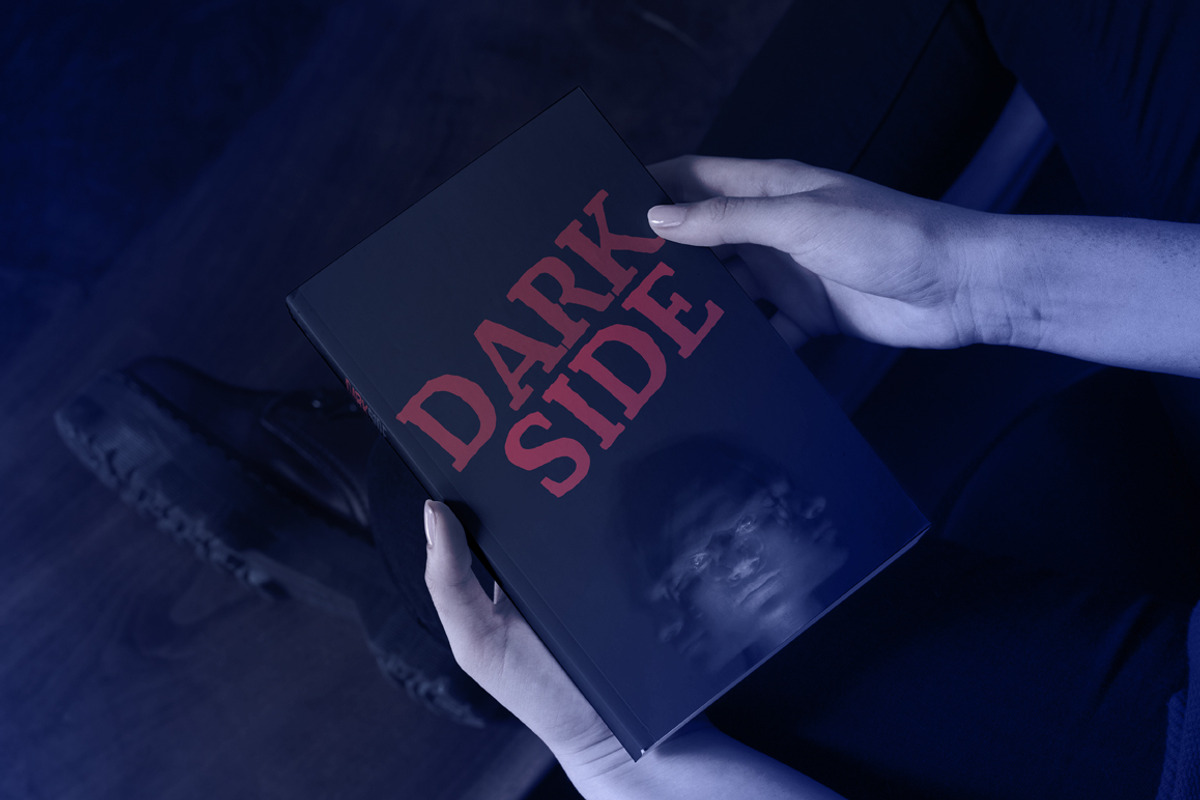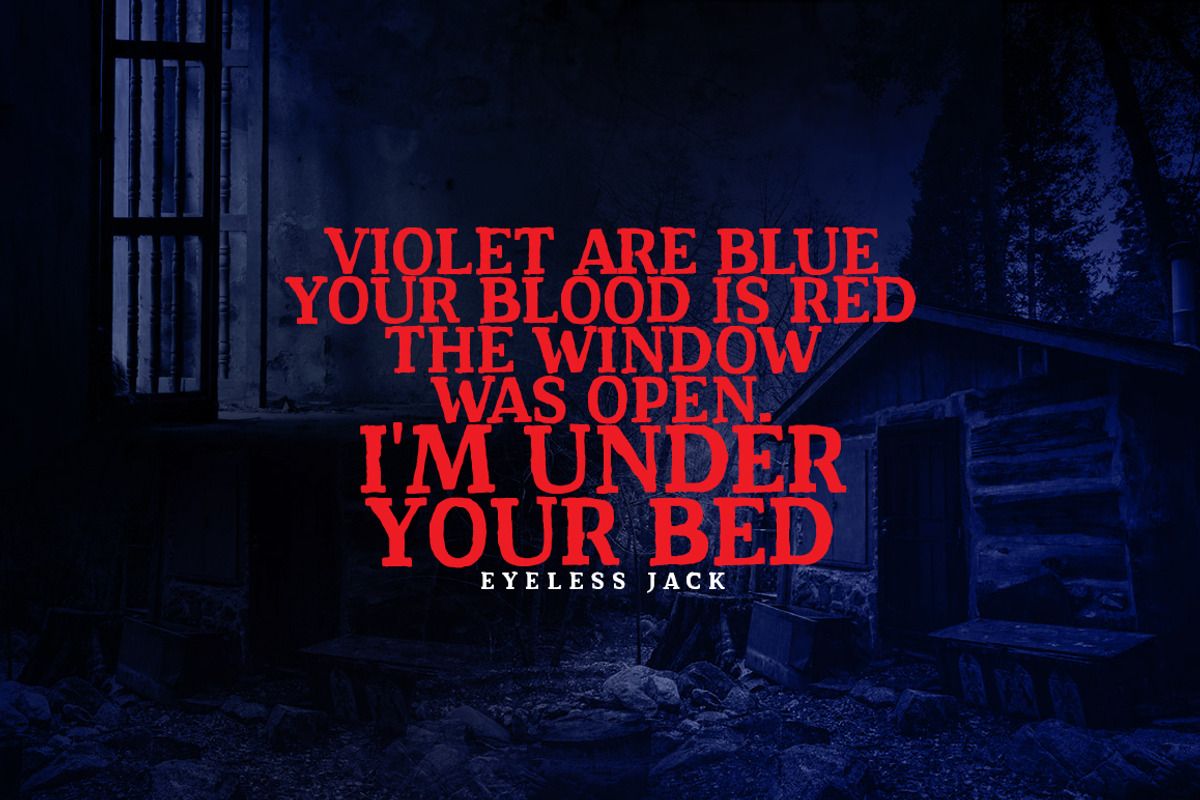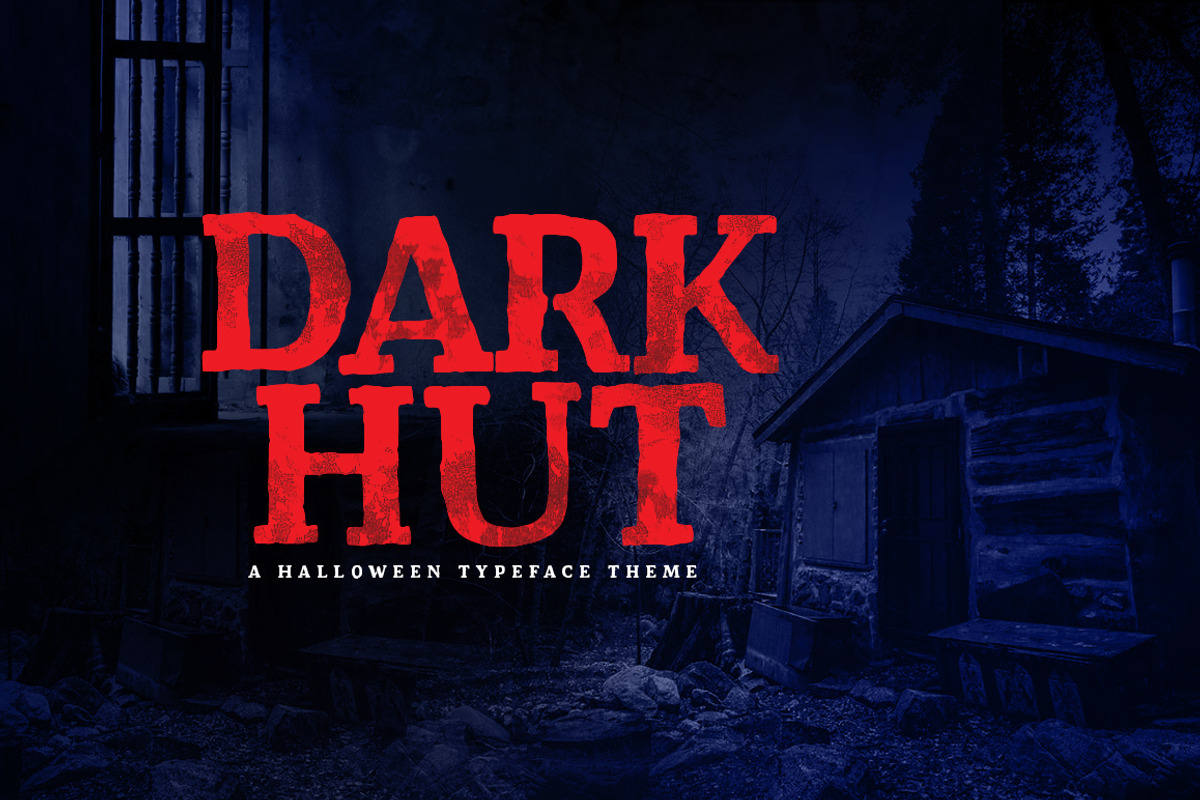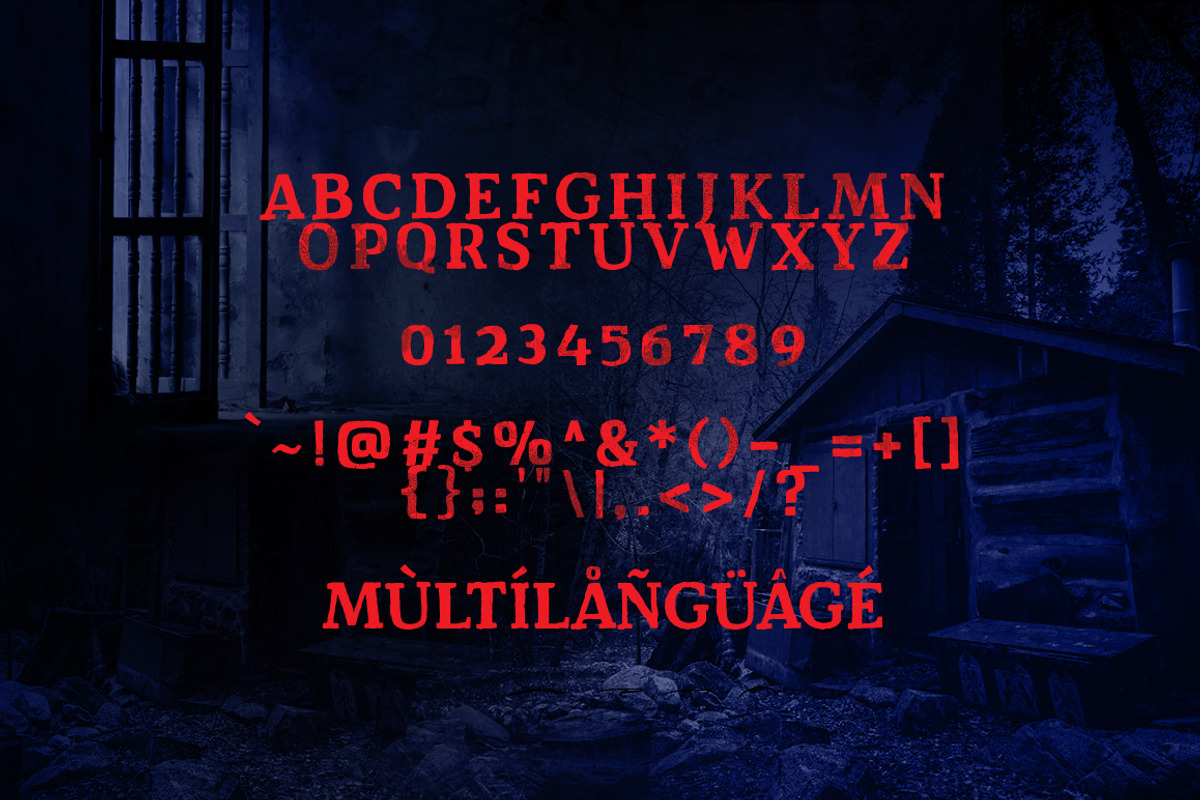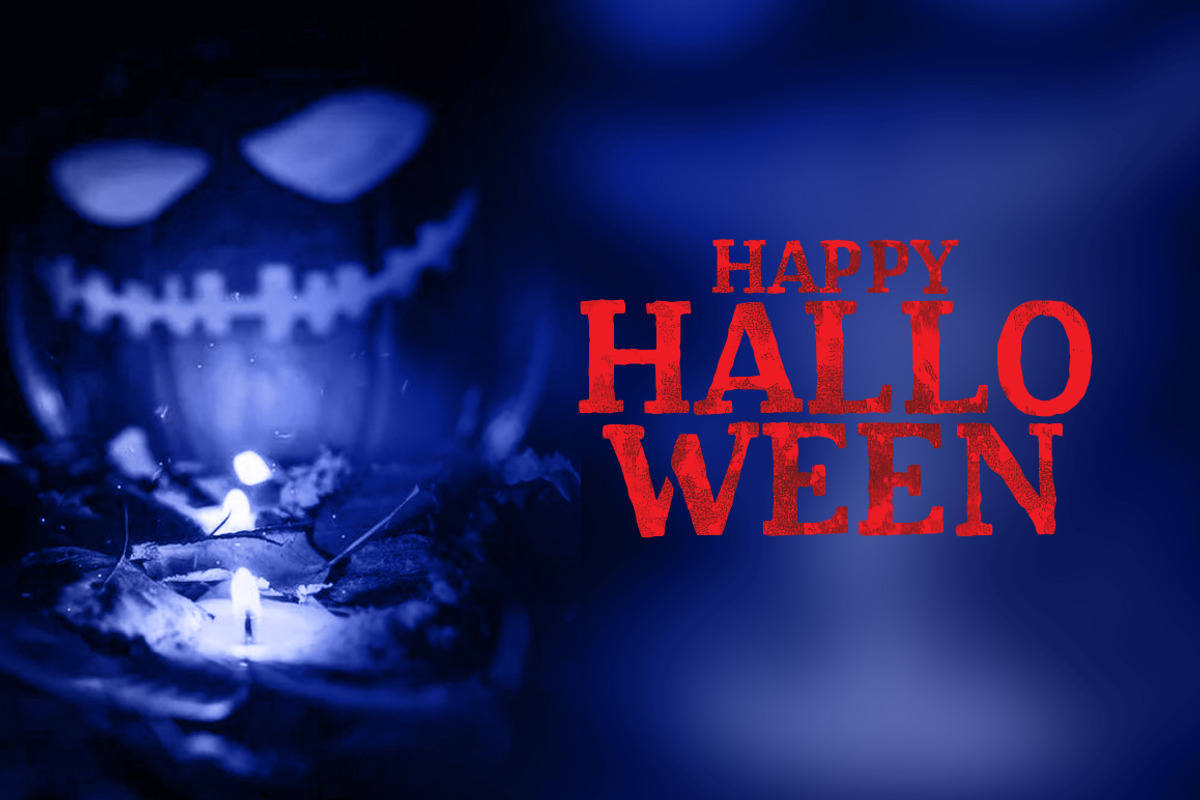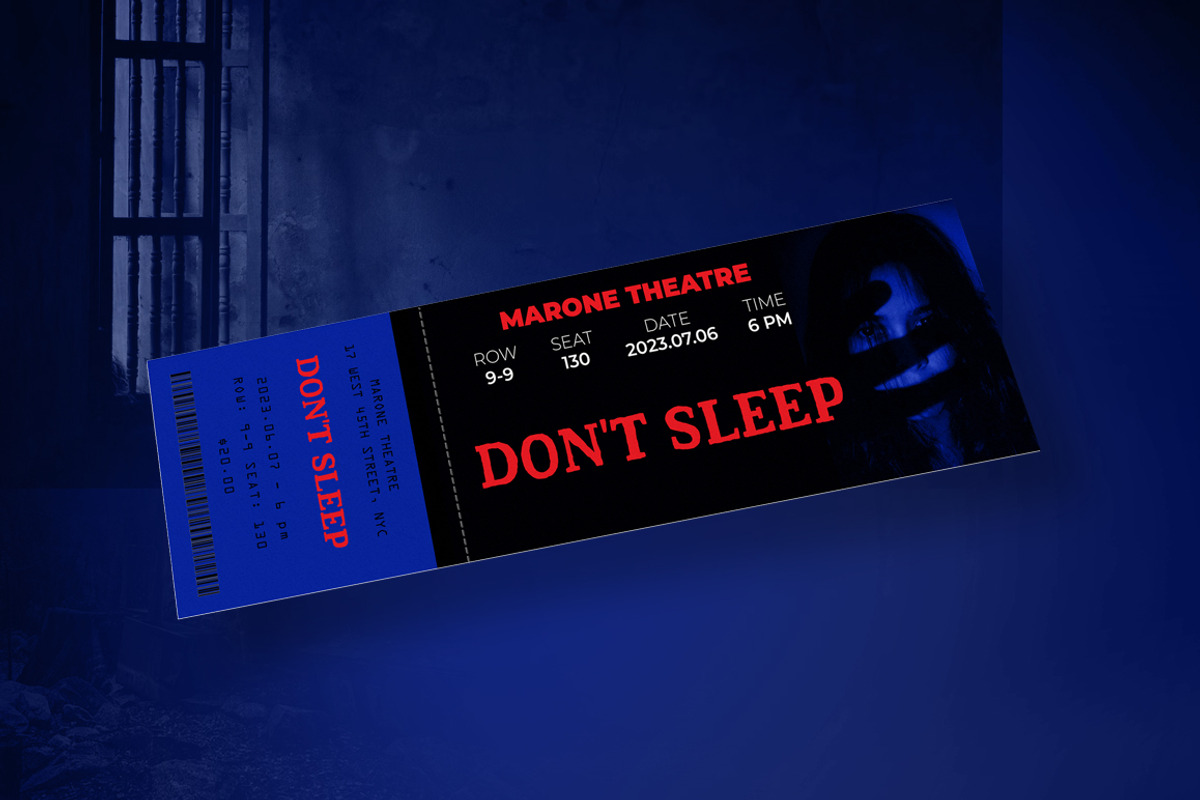
Dark Hut
Dark Hut a sans serif horror font for your halloween project. Dark Hut font suitable for logo, branding, greeting card, branding, poster and any design that you create.